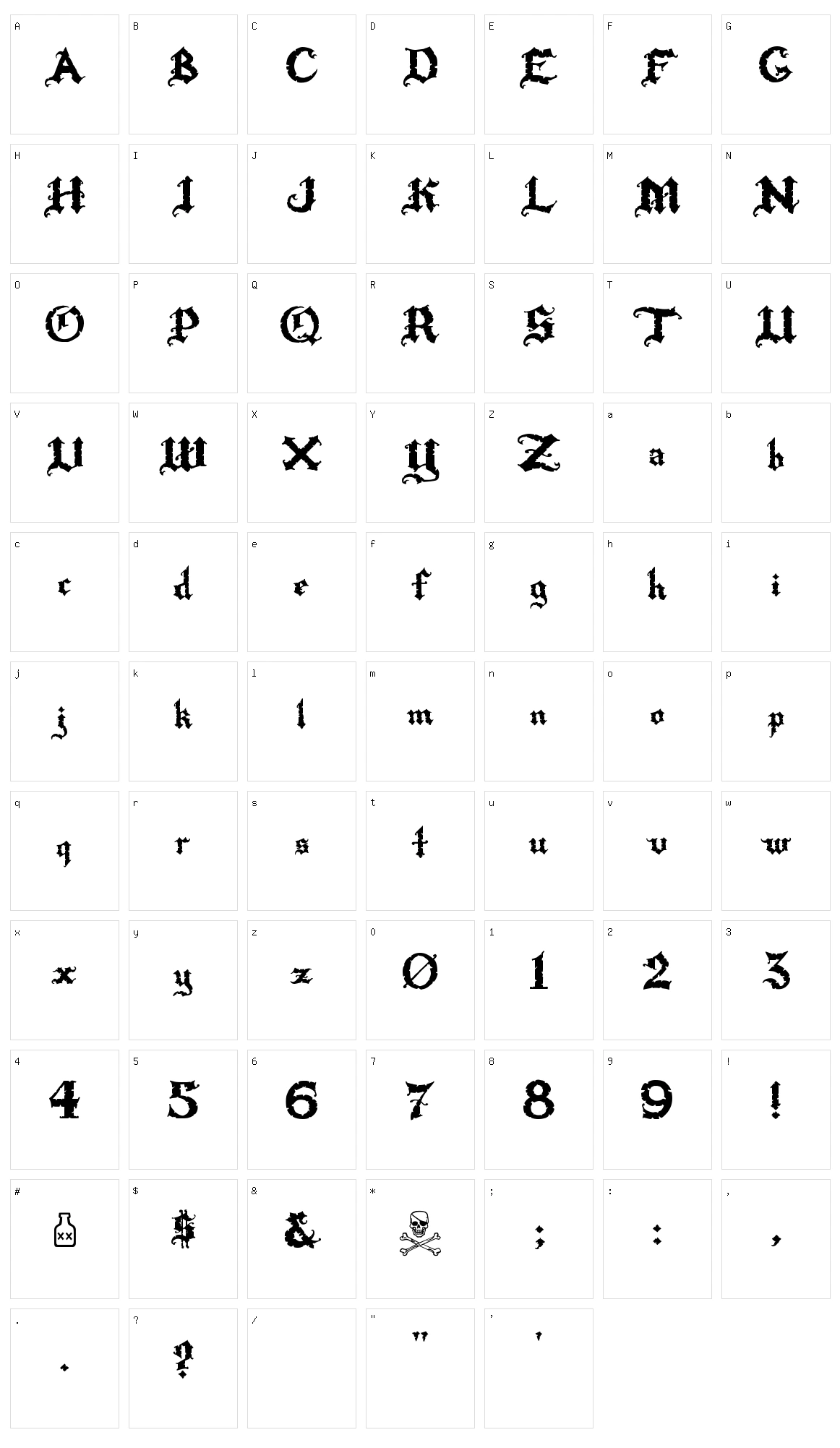
Rapscallion
Category: Medieval & Gothic
Avast me hearties!!
RAPSCALLION is a FREE drunken debauchery-fuelled, pirate-styled TrueType font inspired by the Melbourne, Australia folk-punk band MUTINY (http://www.mutiny.com.au). Basic punctuation has been included with a couple "special" symbols, Arrrh! RAPSCALLION looks best when printed at 48-point or higher (so you can see the hacked-up style of the letters).